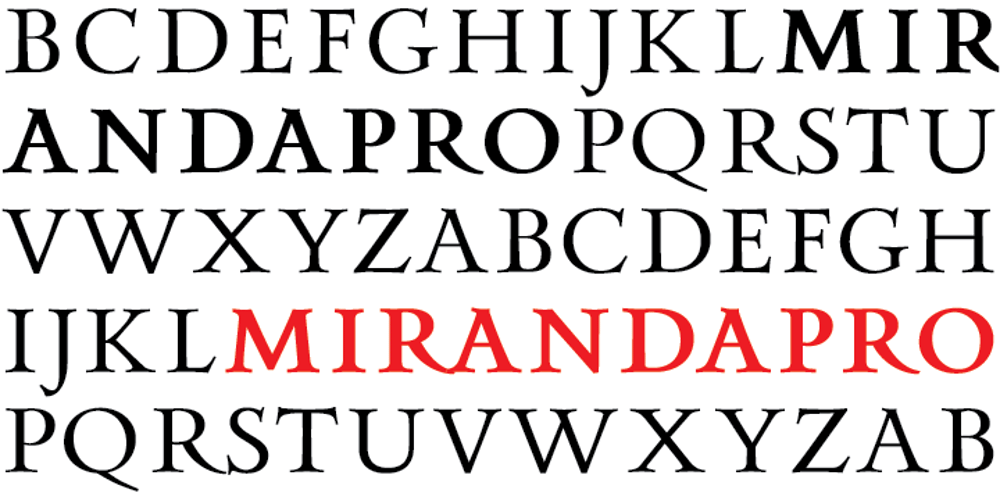
Miranda Pro Font Family was designed by Tim Rolands and published by Tim Rolands. Miranda Pro contains 2 styles and family package options. An elegant display face influenced by Aldine oldstyle letterforms, Miranda Pro brings the early successful Tim Rolands font Miranda into the OpenType era. Miranda Pro now includes numerous extended ligatures, alternate forms, small capitals and support for a wider range of languages. Use it as a companion display for classic text fonts or on its own as a refined but stylish messenger for all sorts of projects.